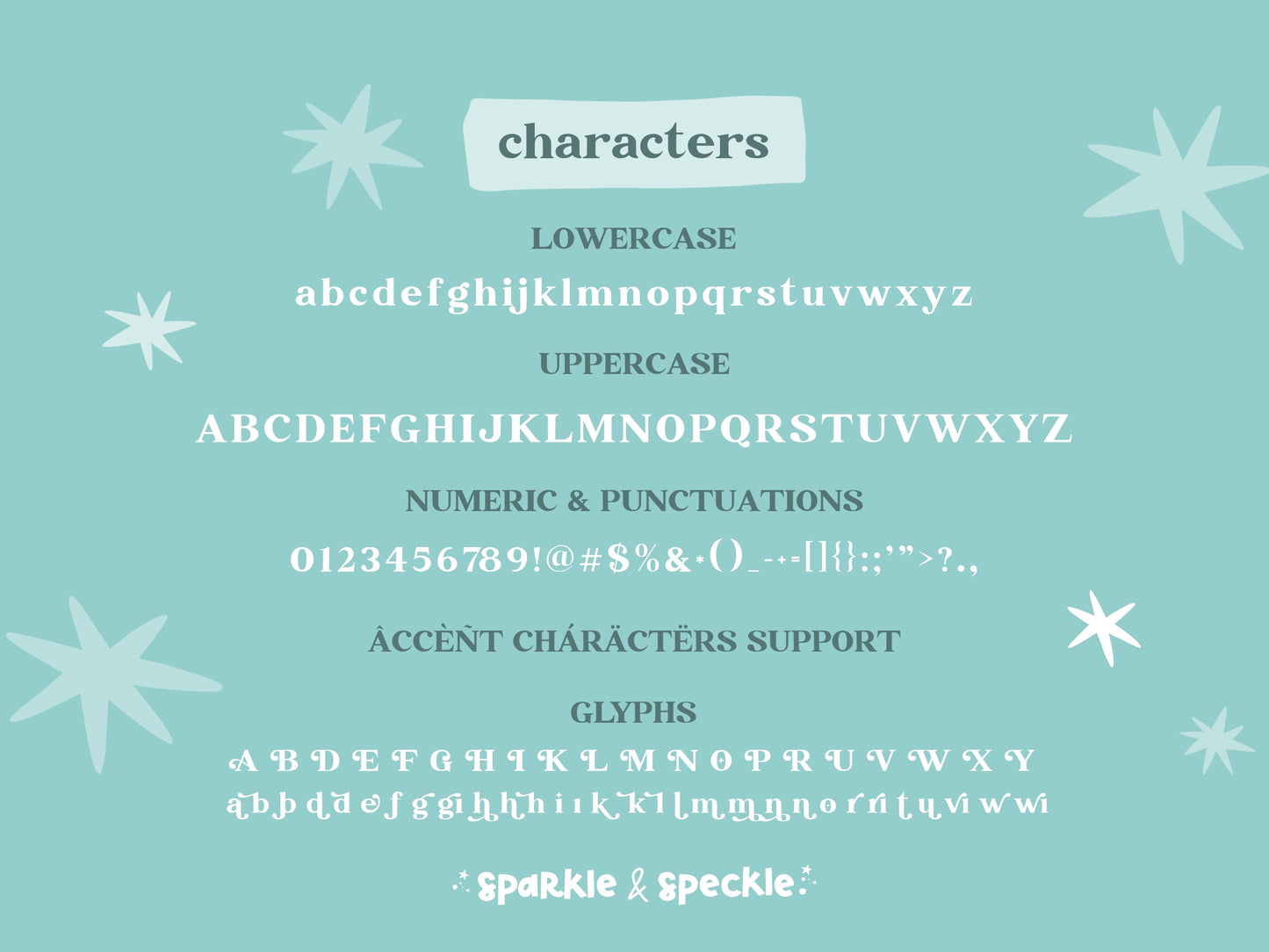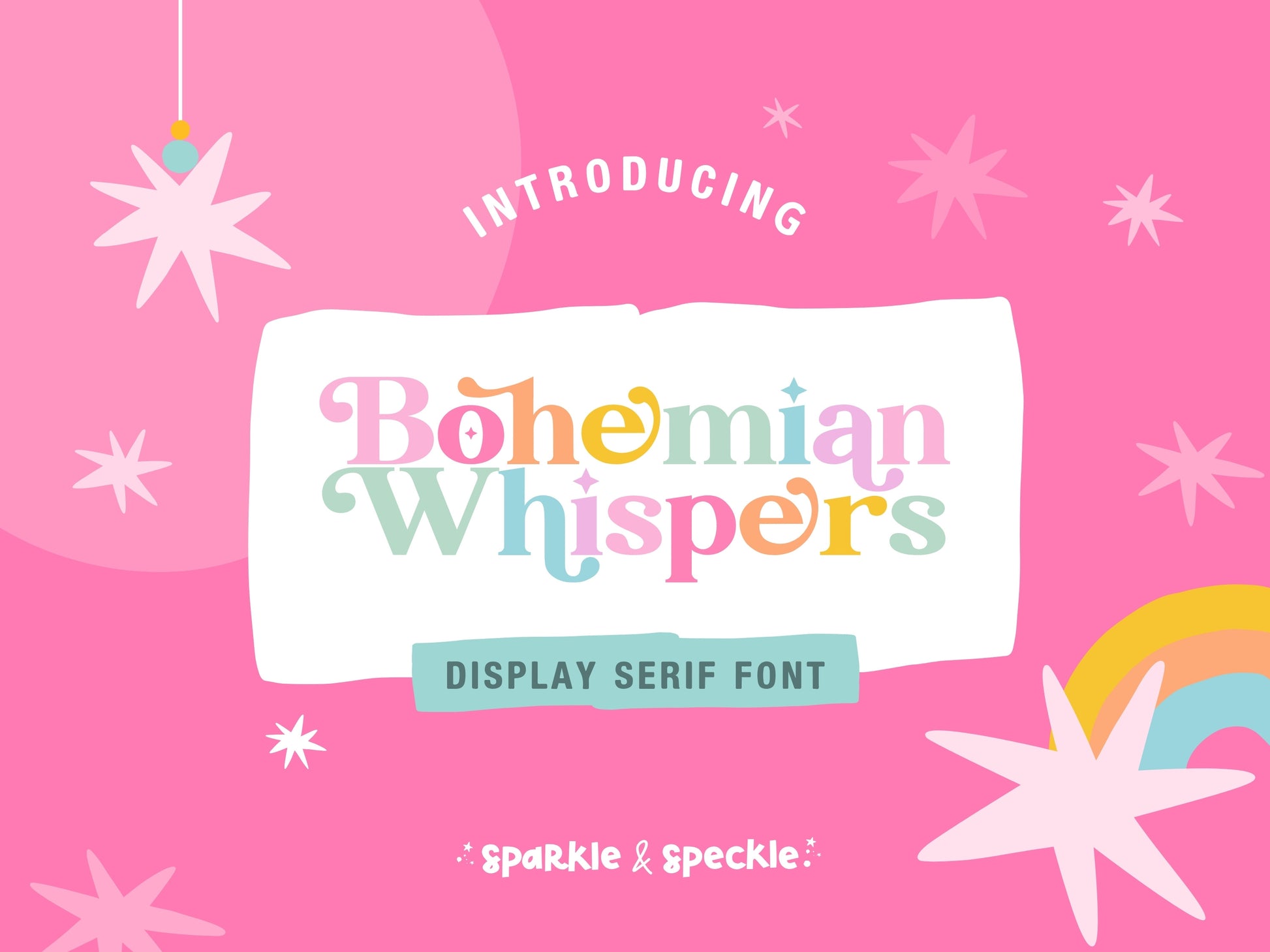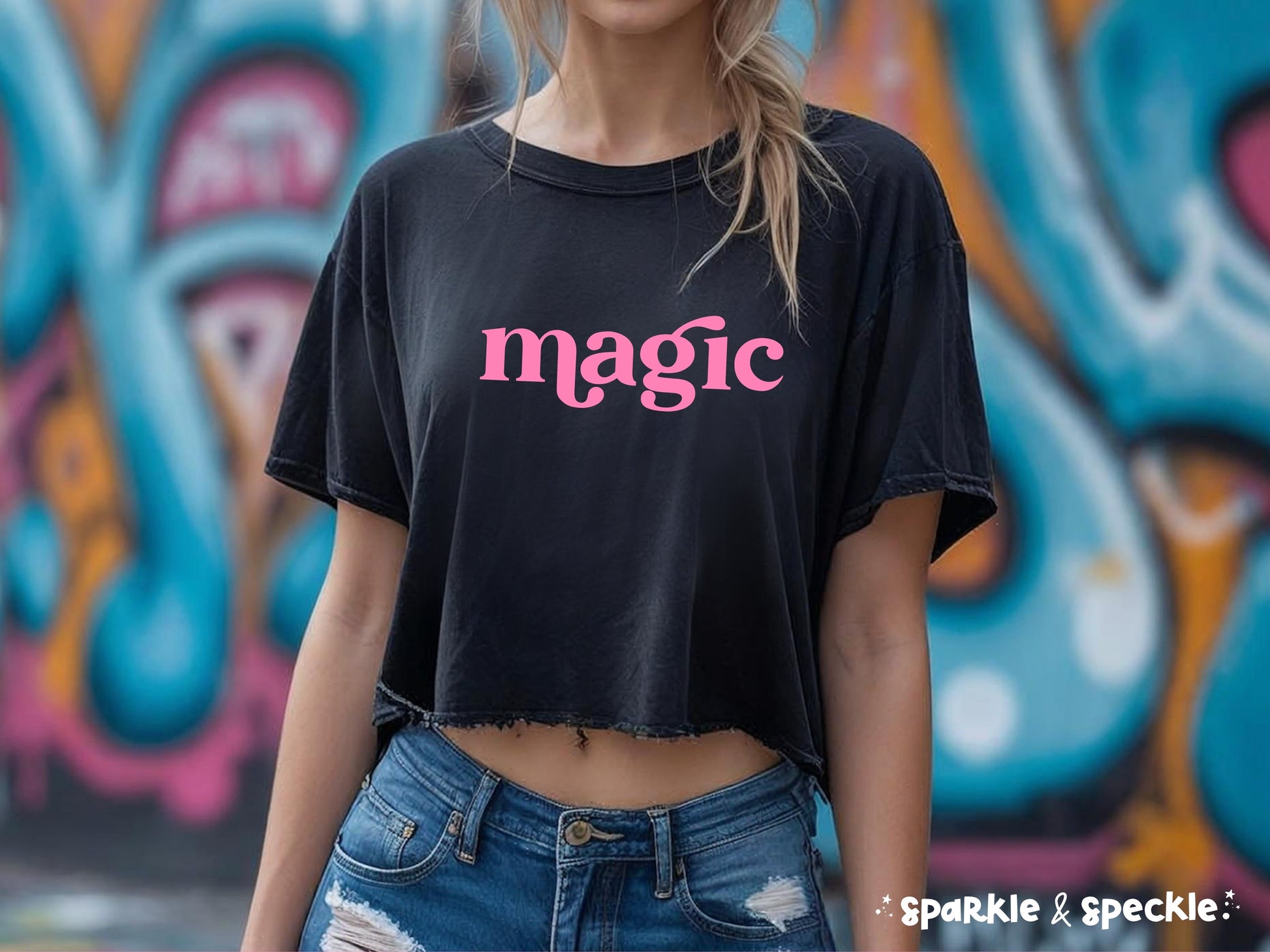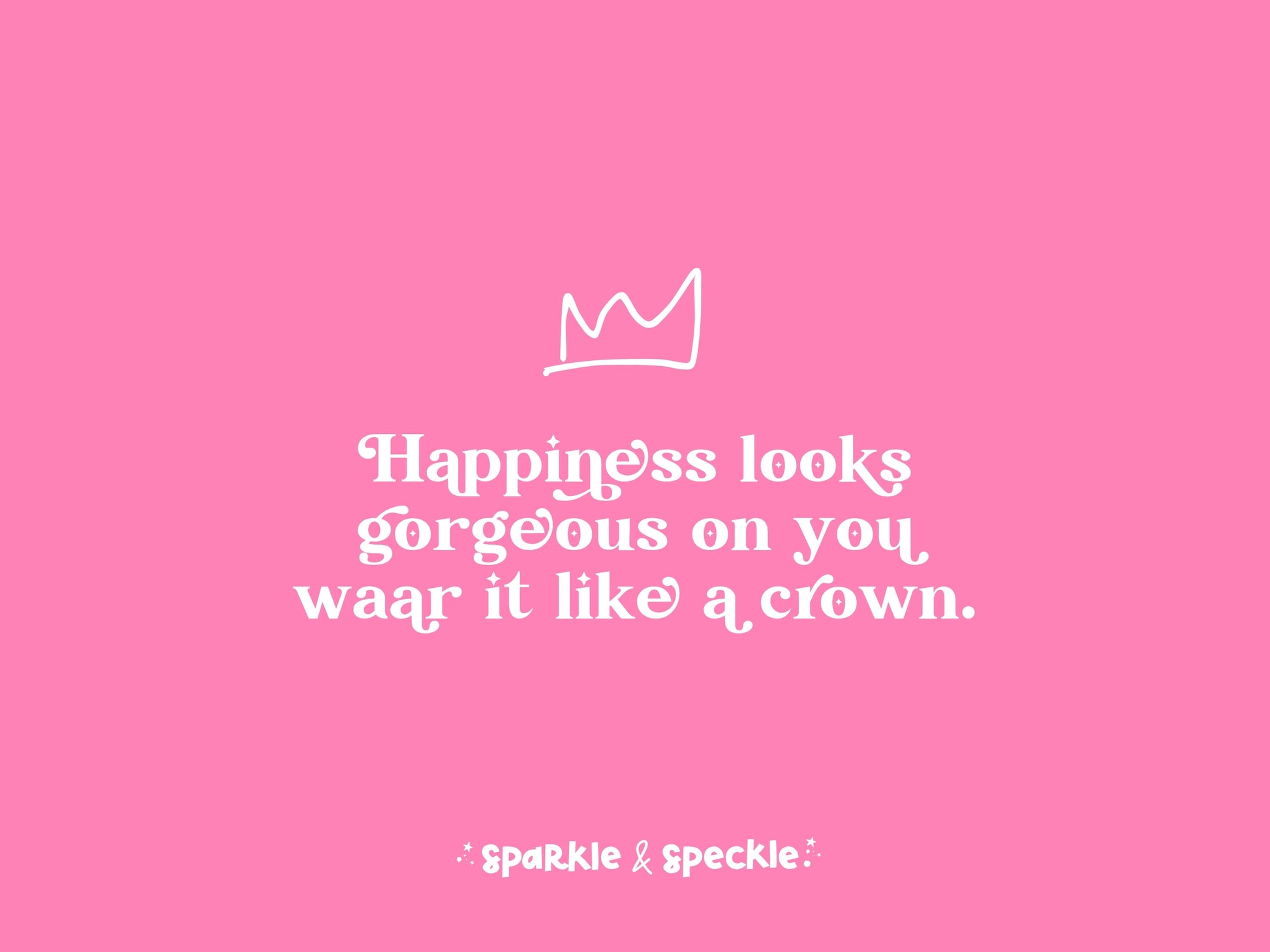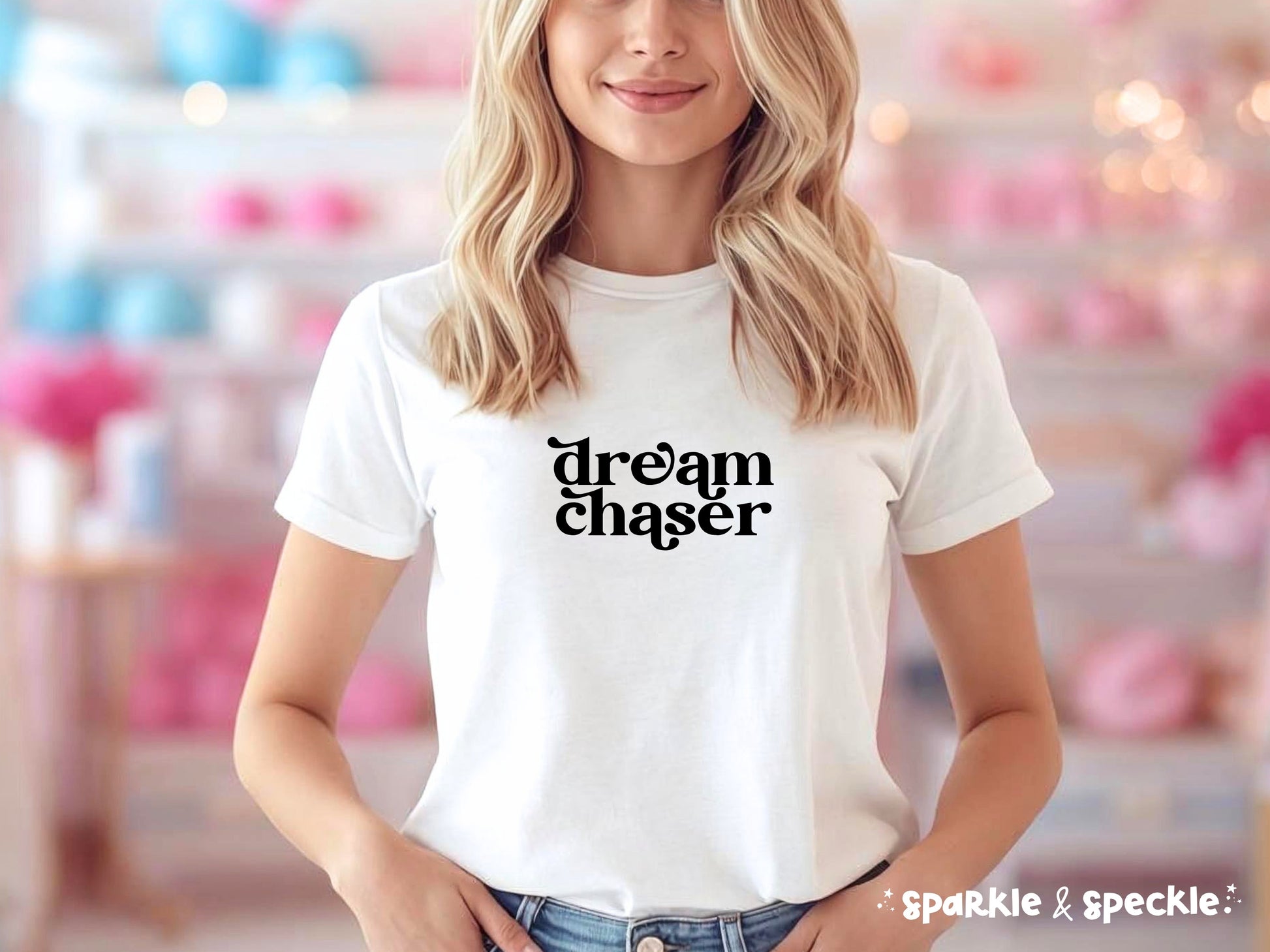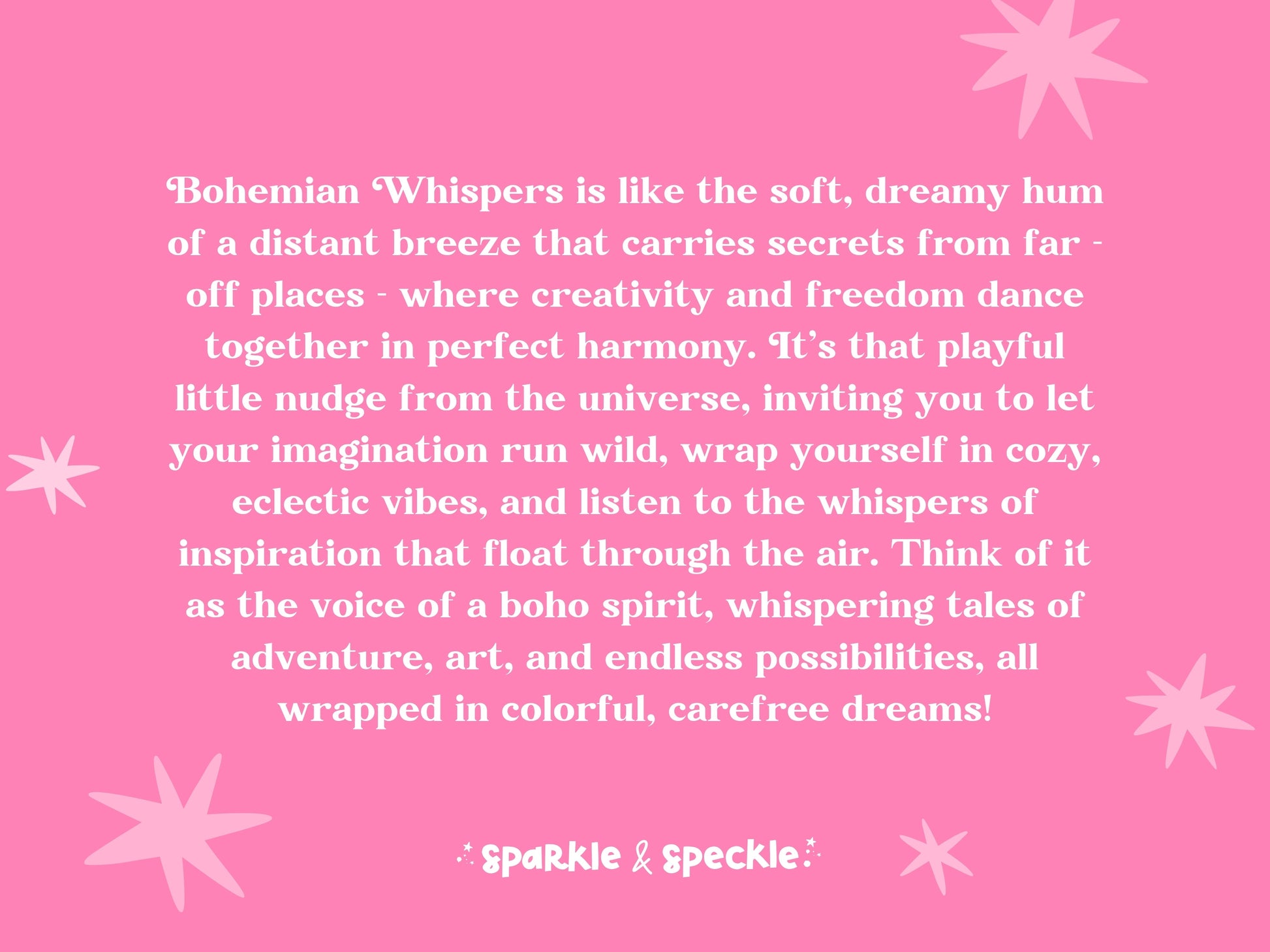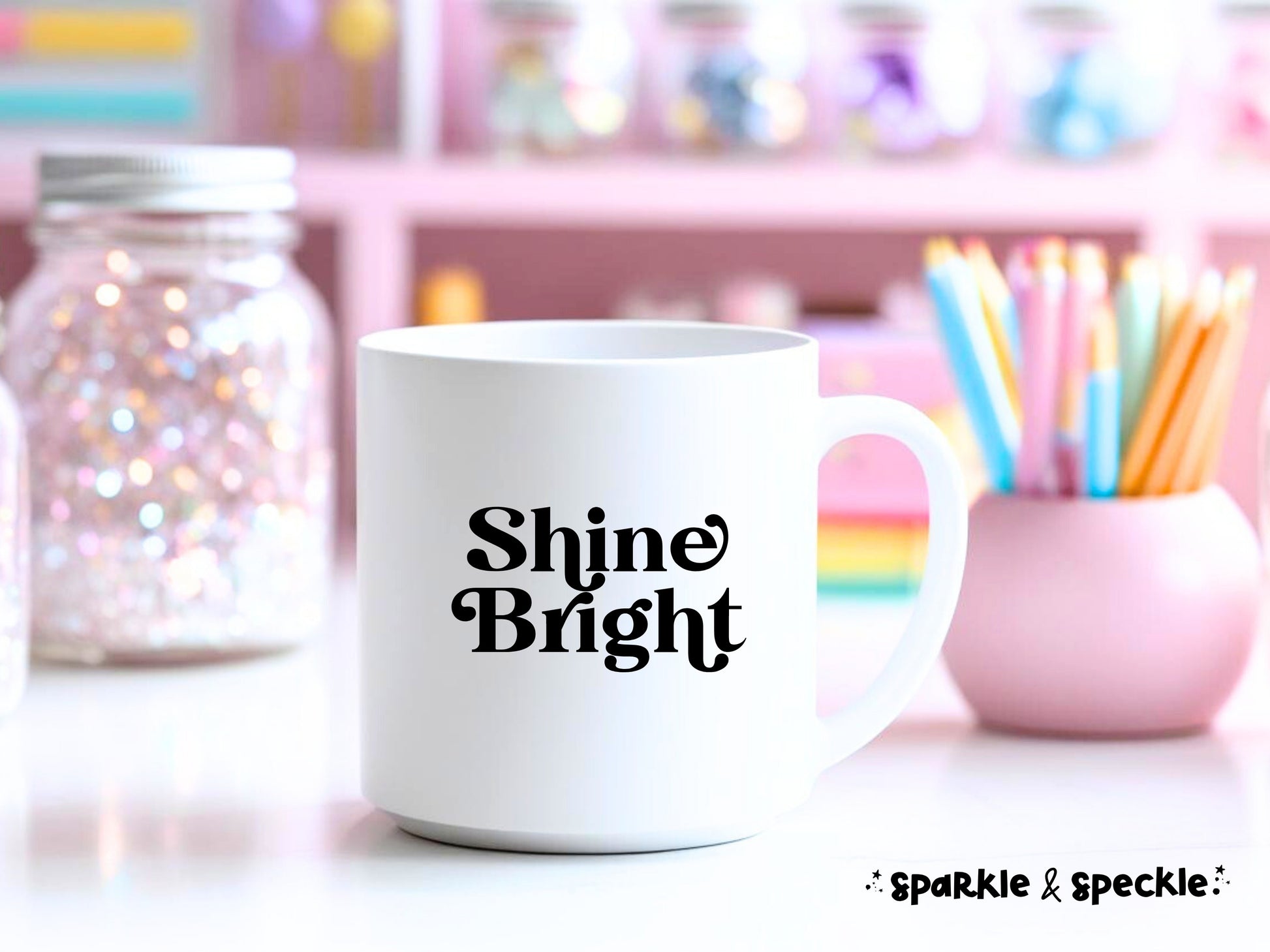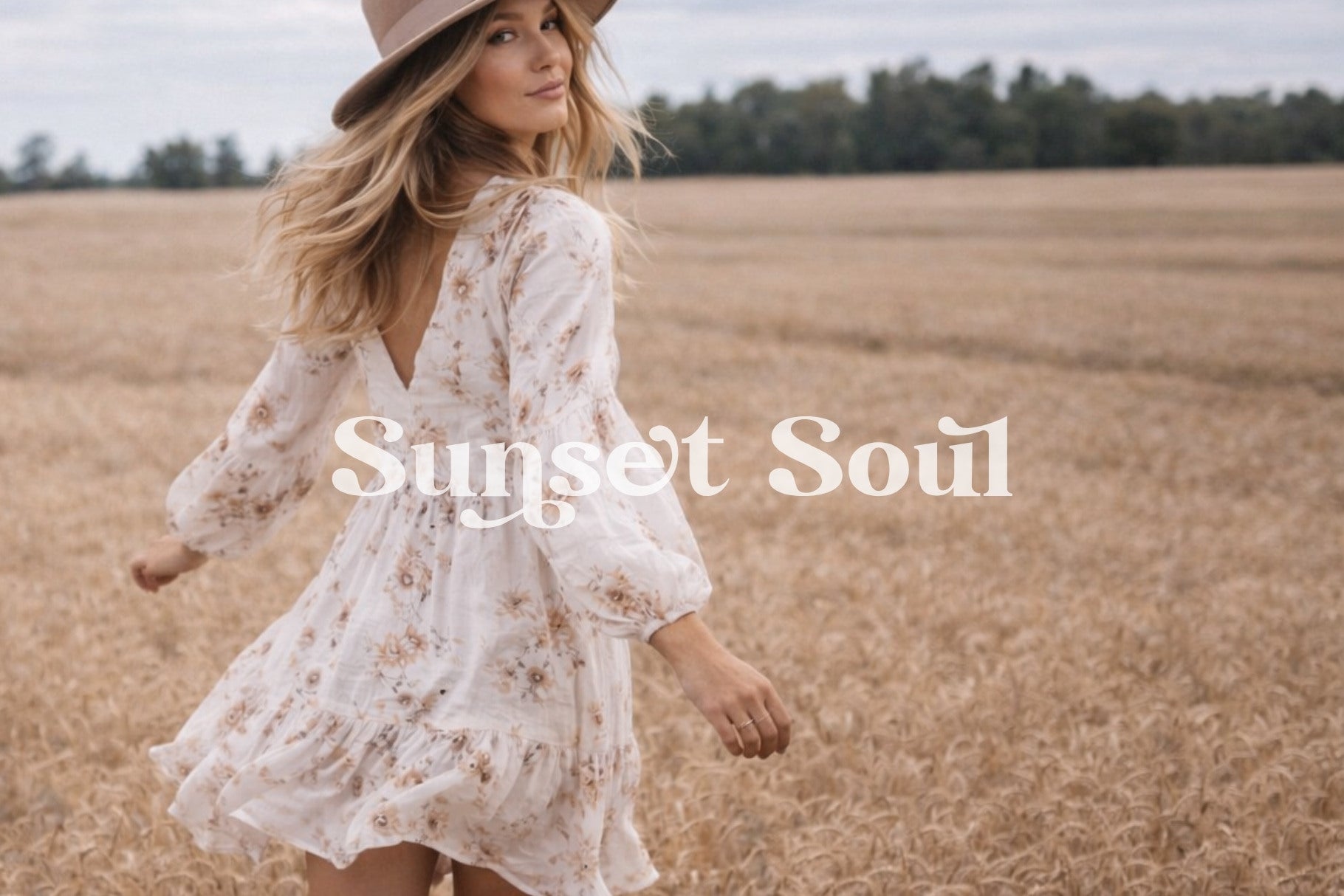
Bohemian Whispers Font – Retro Serif for Branding
Bohemian Whispers is a bold serif display font designed to bring a soft retro and boho-inspired feel to modern branding.
With its smooth curves, expressive swashes, and carefully crafted alternate characters, this font allows you to create typography that feels both distinctive and refined. The balanced serif structure keeps it clean and readable, while the decorative details add personality and charm.
Ideal for logos, packaging, and brand identity design, Bohemian Whispers helps you build a cohesive and memorable visual style across both print and digital platforms.
Designed to help you create expressive, boutique-style branding with ease.
Features:
• display serif font
• retro-inspired letterforms
• decorative swashes and details
• stylish and easy to read
• ideal for branding and logos
• suitable for print and digital use
* Not every letter will have an alternate version—only certain letters do.